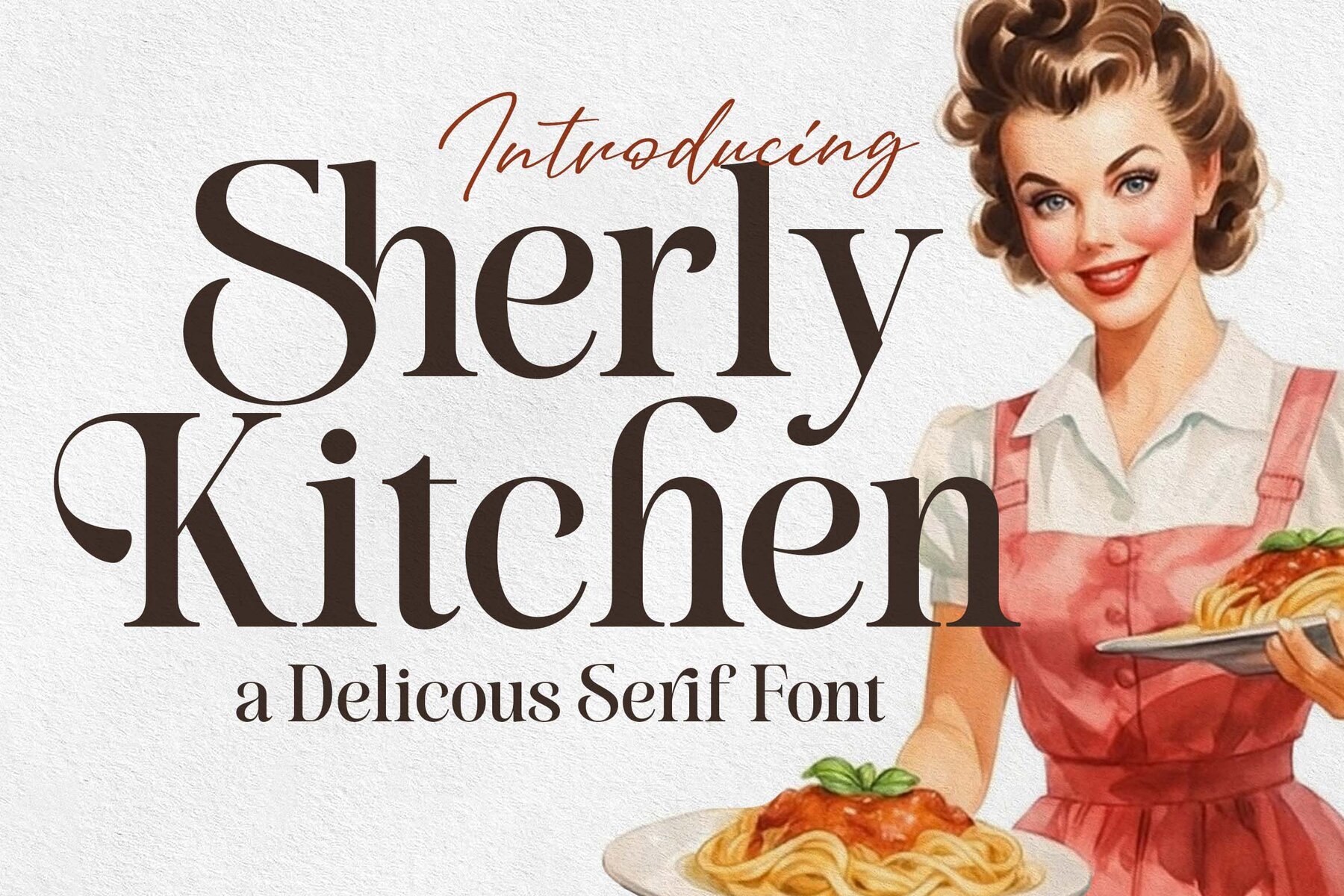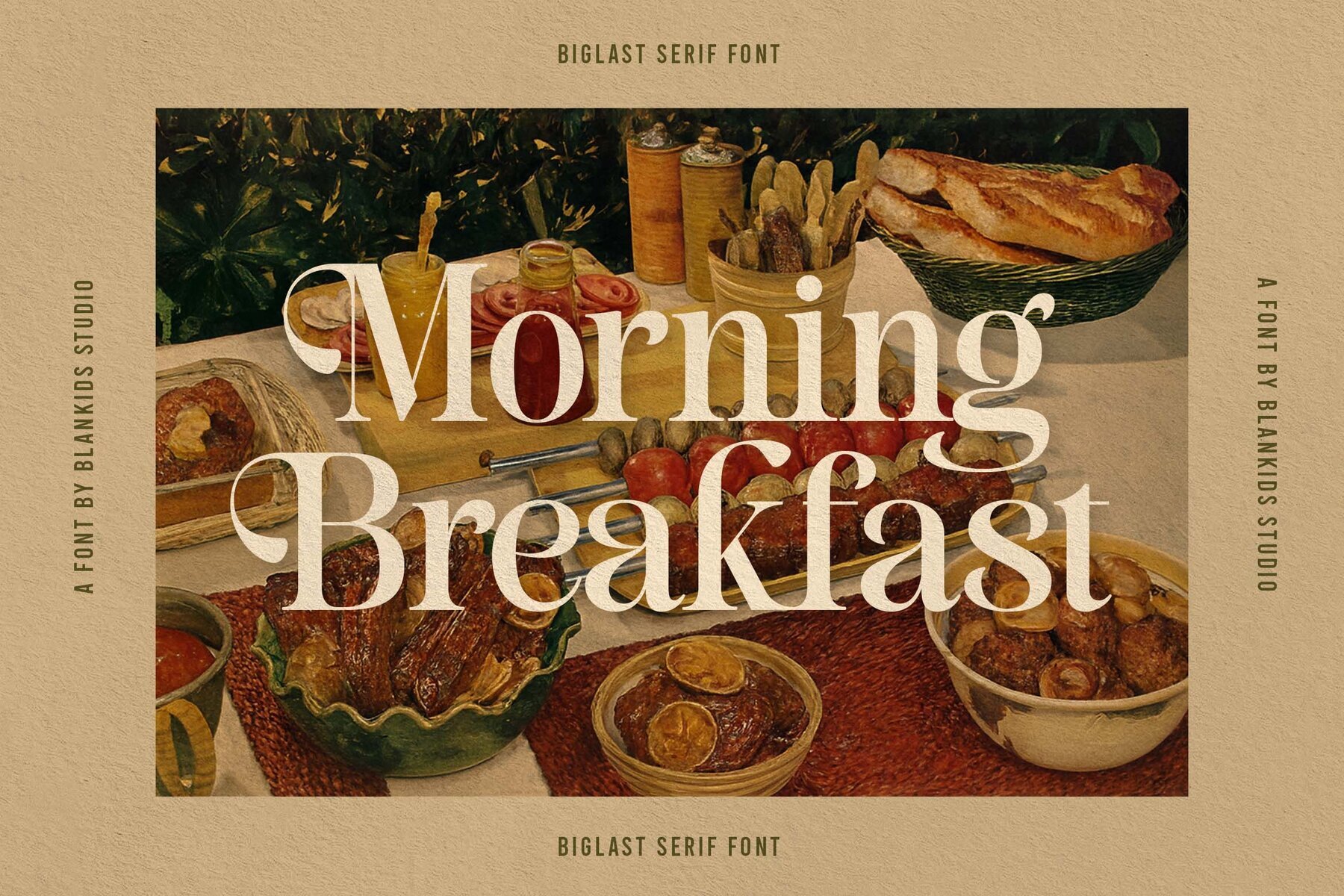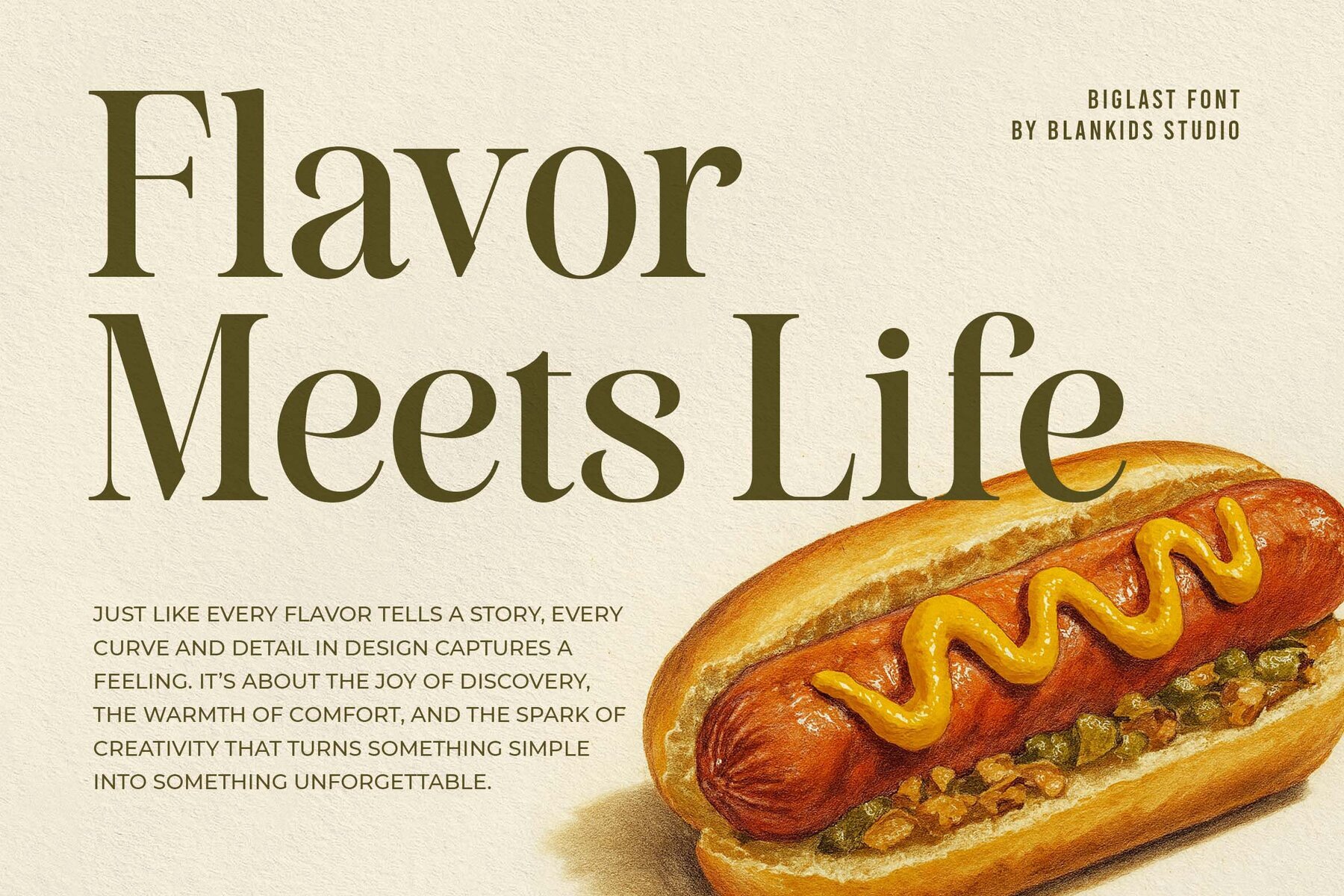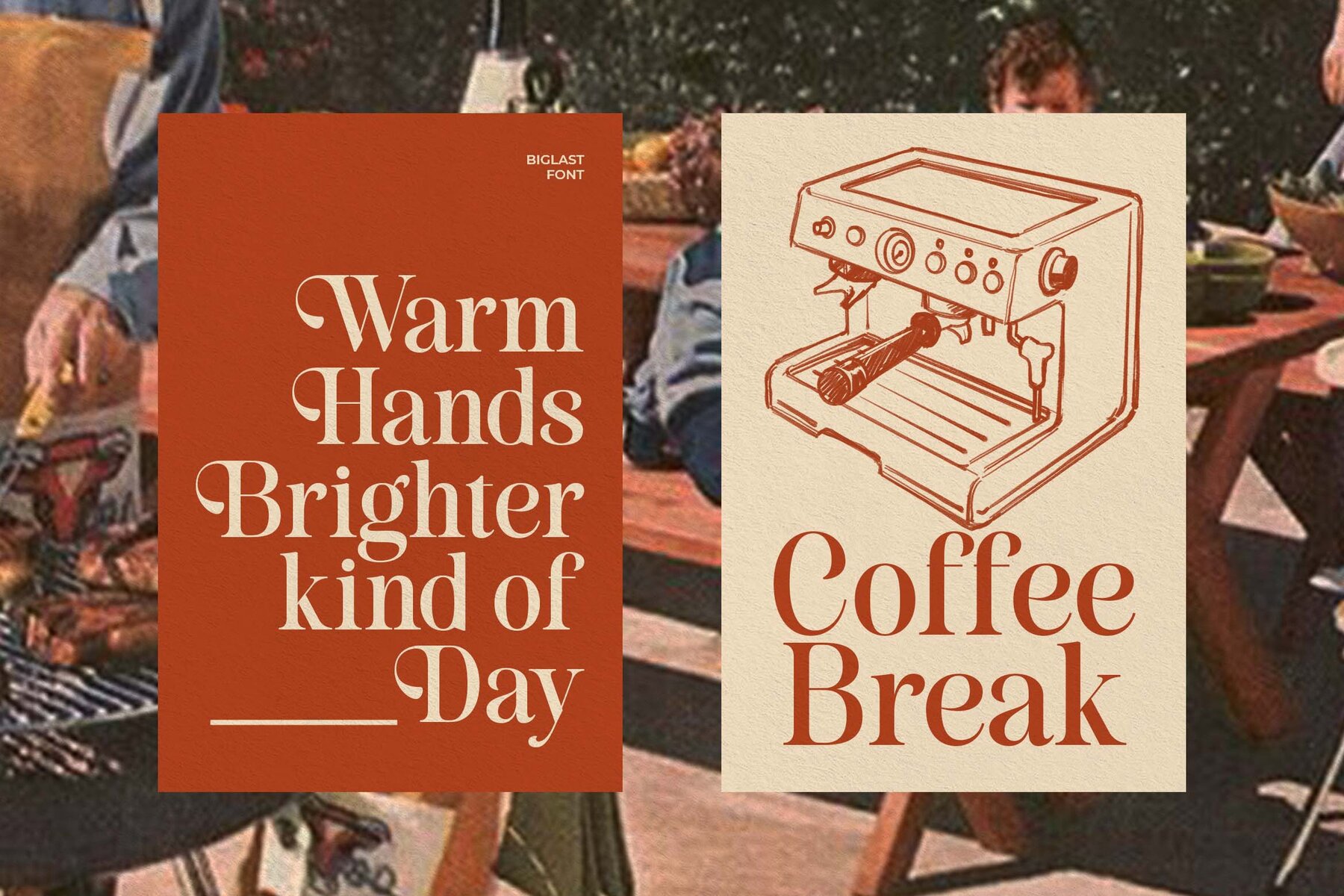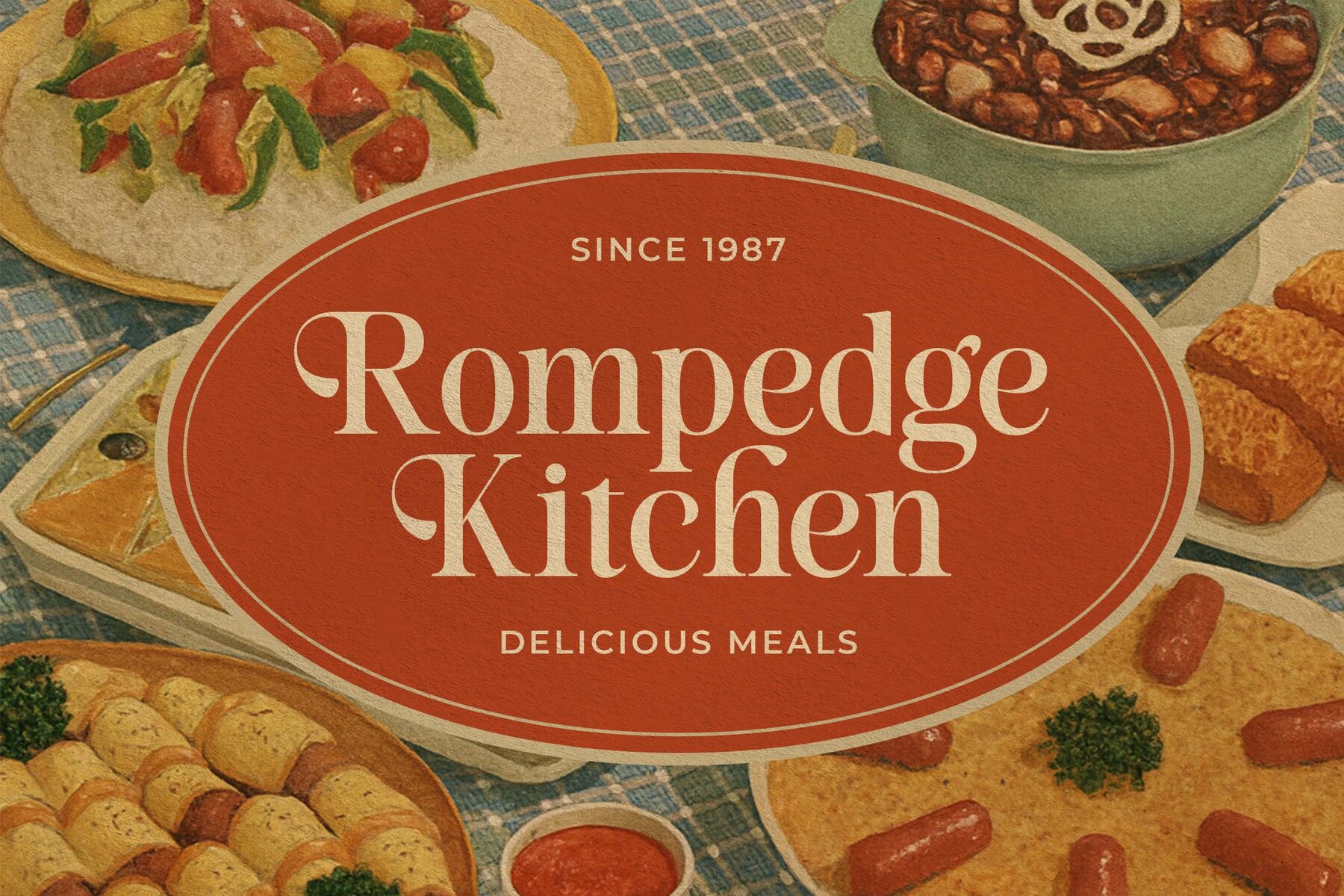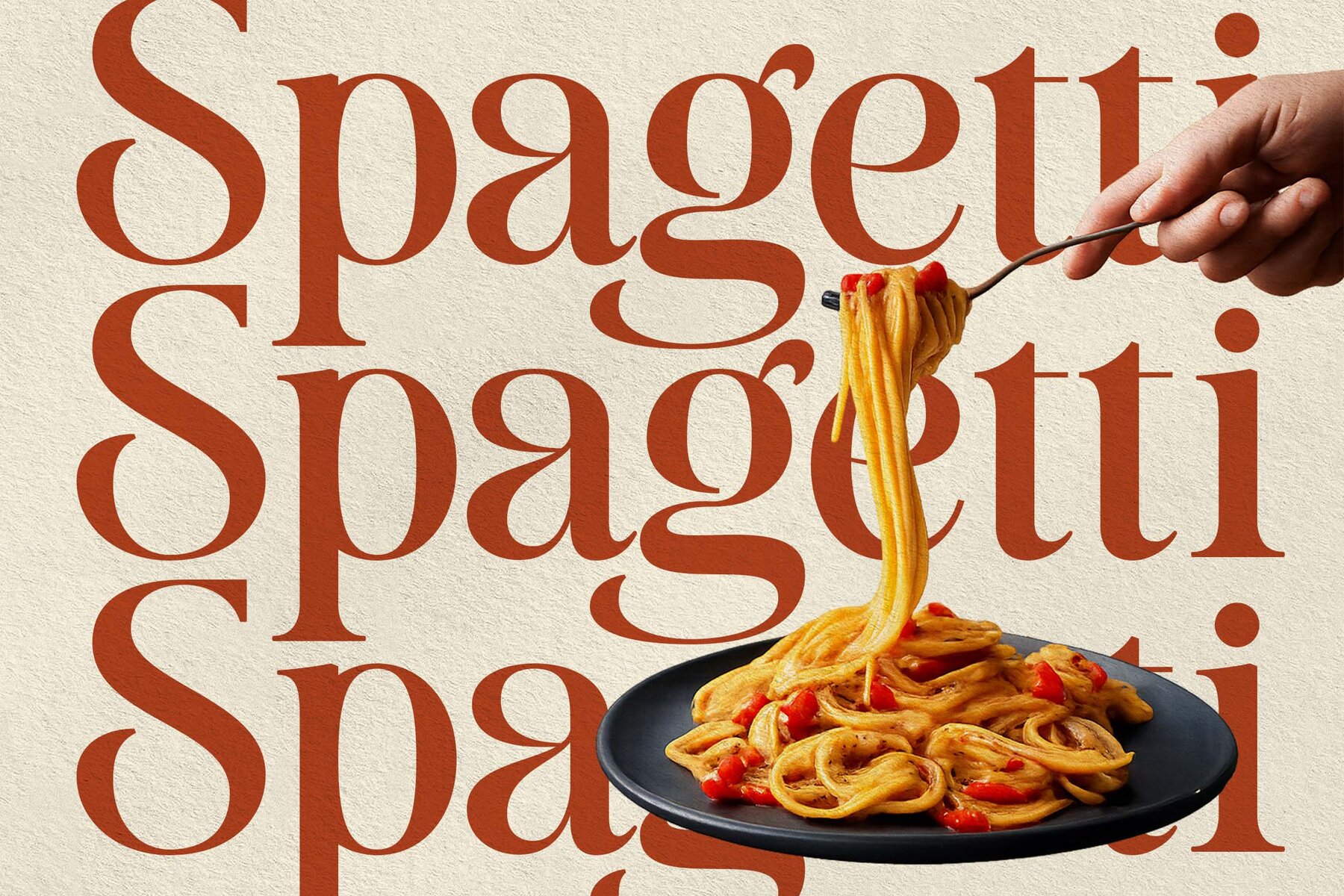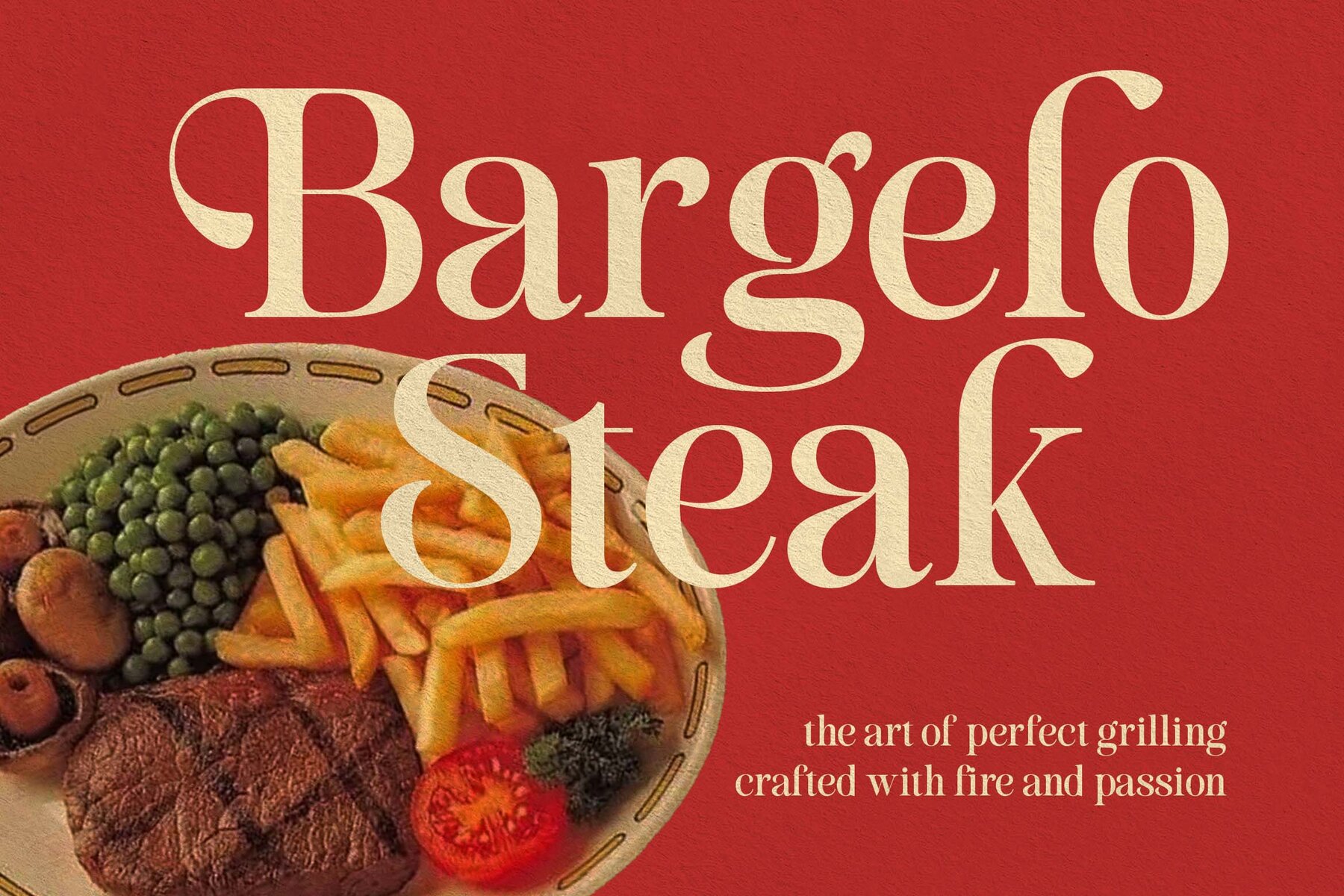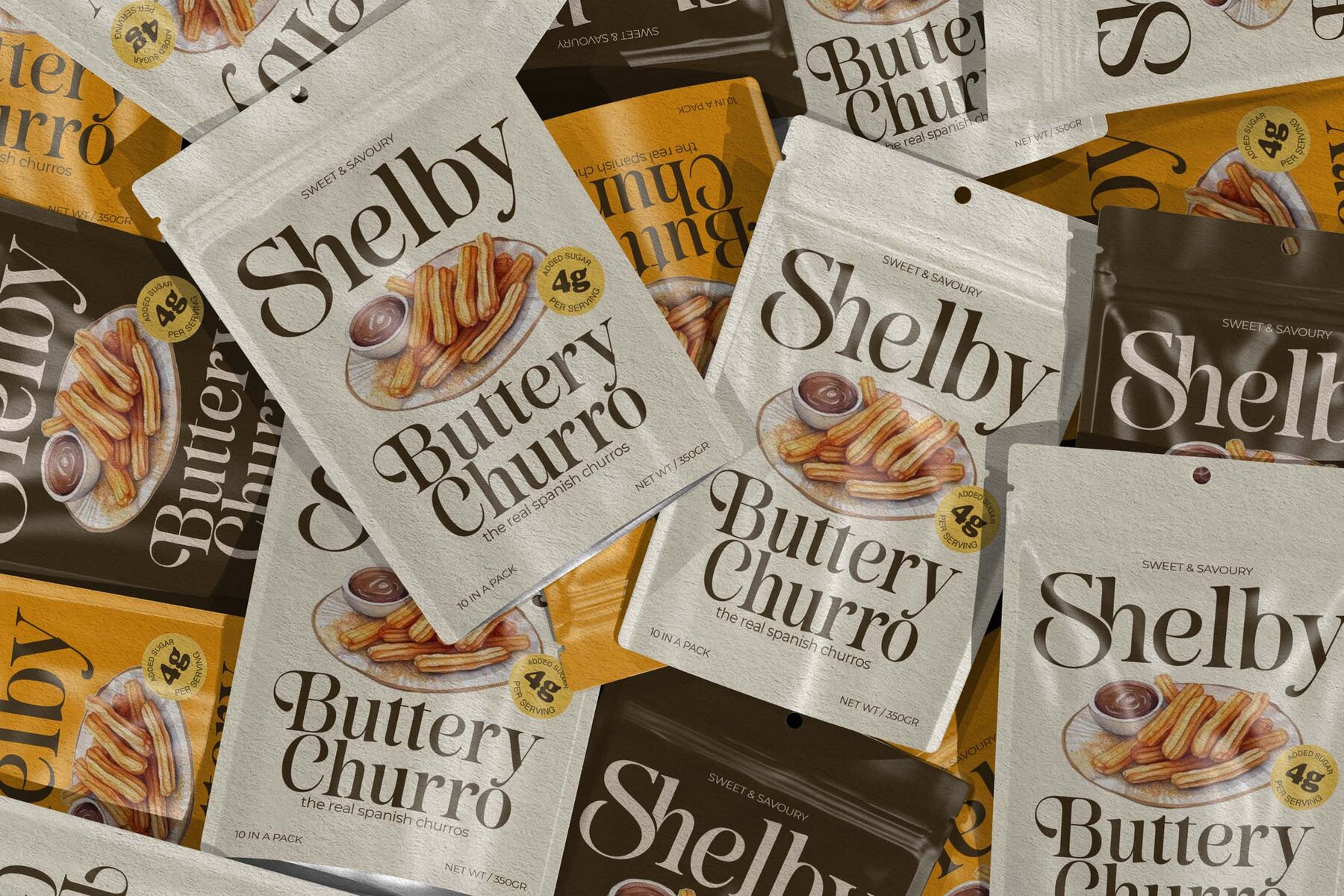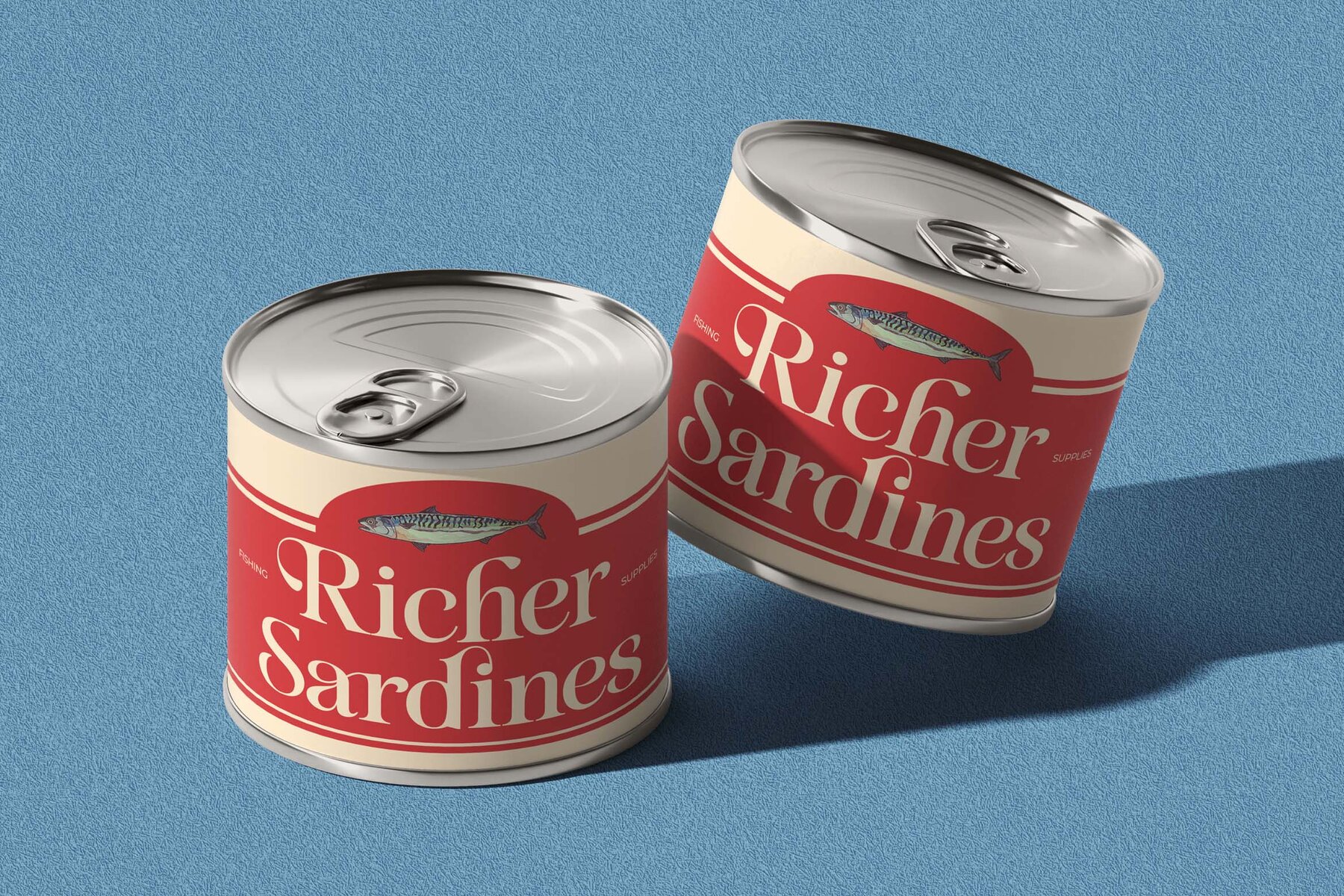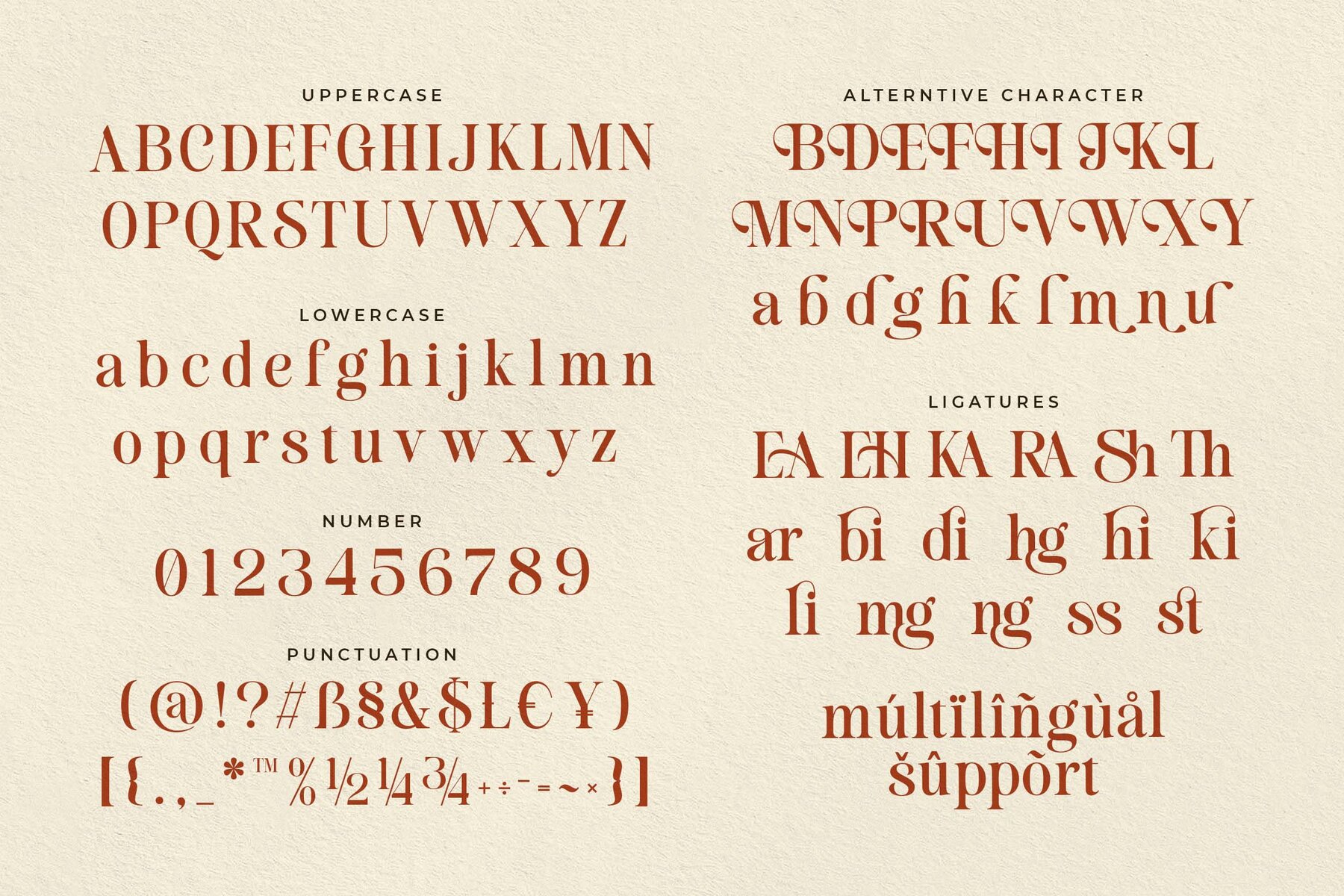
Sherly Kitchen Font
Sherly Kitchen is a serif font that fuses vintage warmth with contemporary sophistication. Drawing inspiration from retro food packaging and classic diner menus, it evokes a sense of nostalgia while remaining versatile for modern applications. The soft curves, high-contrast strokes, and refined letterforms give each character a welcoming and memorable feel.Sherly Kitchen Serif Font
Ideal for a variety of design projects, Sherly Kitchen lends a distinctive, homemade character to bakery logos, restaurant branding, recipe books, and packaging. Its inviting charm helps brands communicate authenticity and a timeless style, making it a strong choice for businesses seeking connection through design.Features